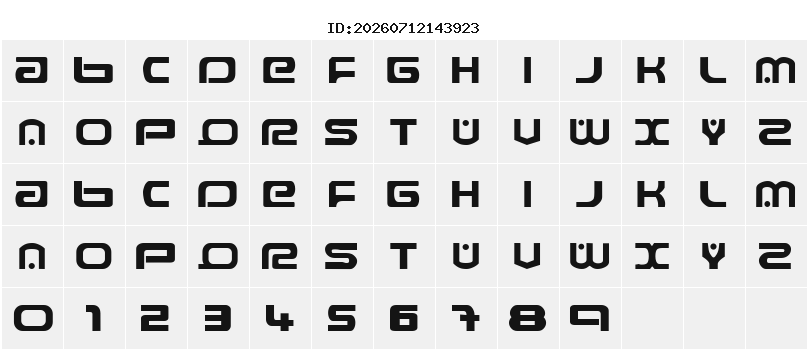
About Raveflire 2.0.ttf
Raveflire 2.0.ttf is a modern, elegant sans-serif font designed for ultimate readability and visual harmony. Perfect for branding, headlines, web design, and print materials.